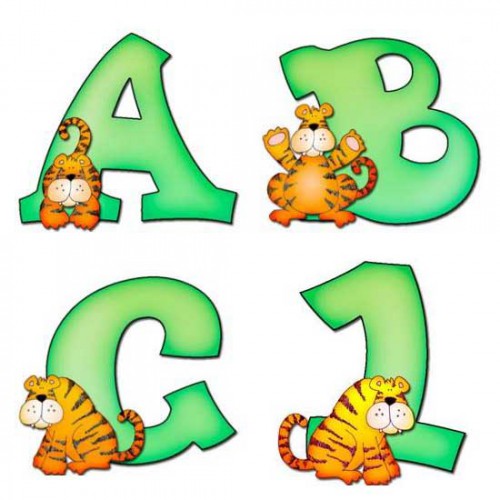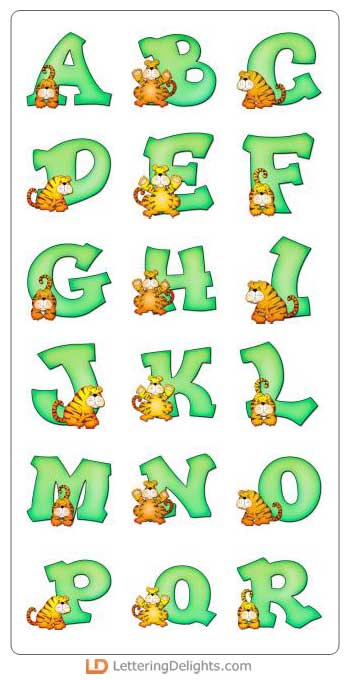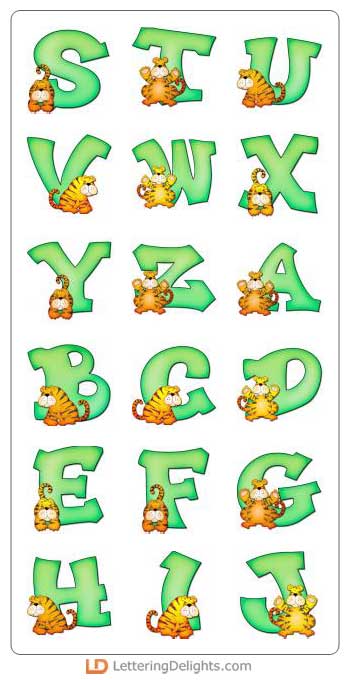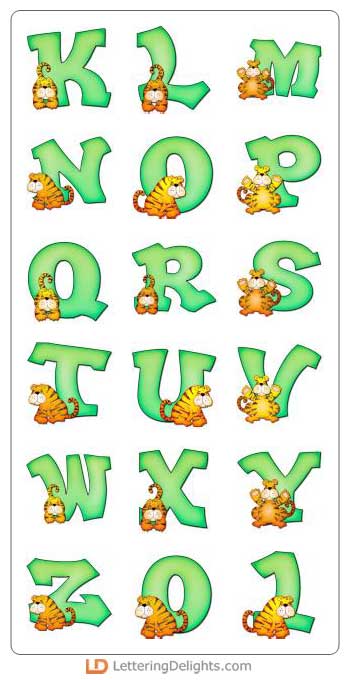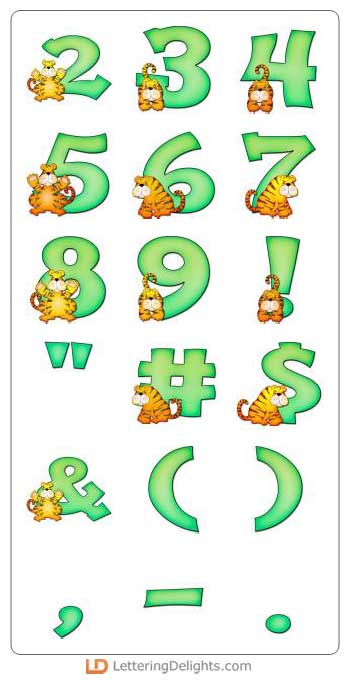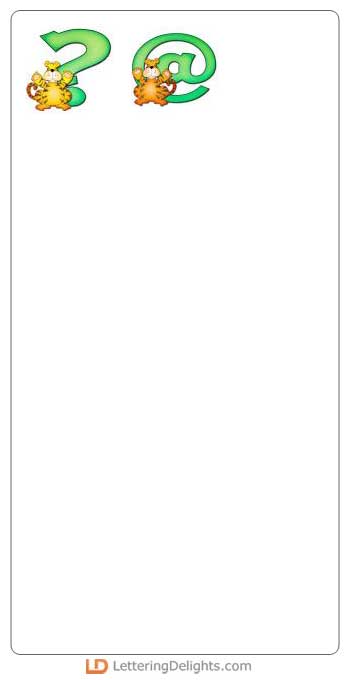
Adorable little tigers are frolicing around the letters of this alphabet. You'll find many uses for these letters, such as scrapbook journaling, newsletter titles, or design your own word art to decorate a zoo-themed nursery. Let your creativity take over with this cool alphabet.